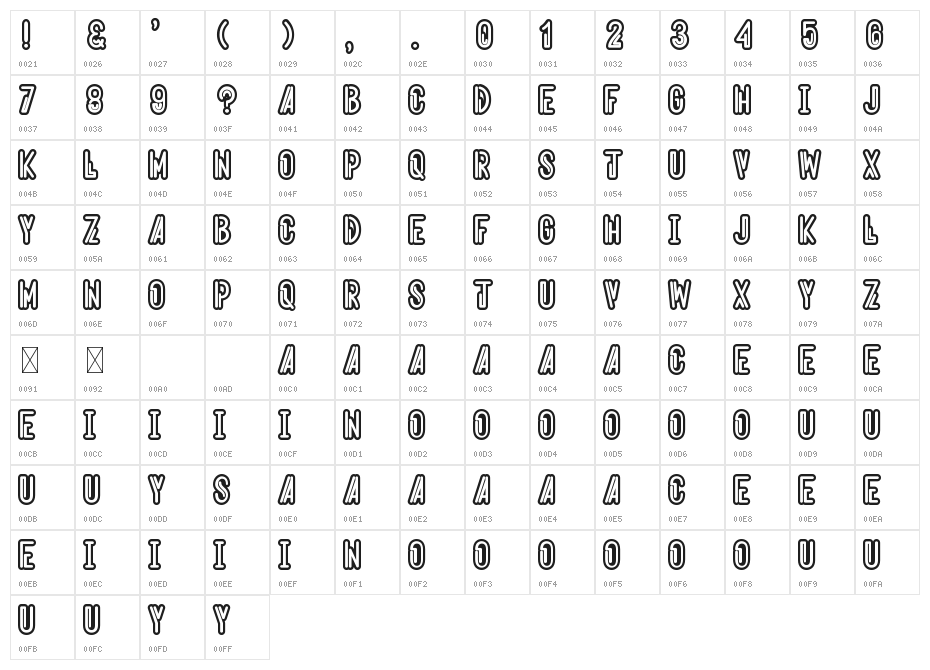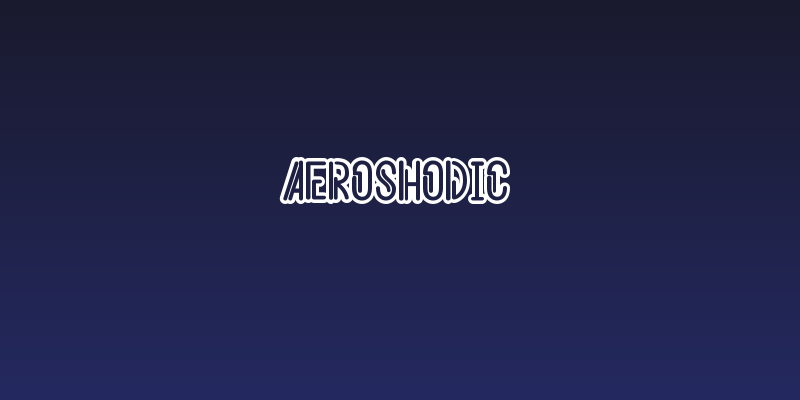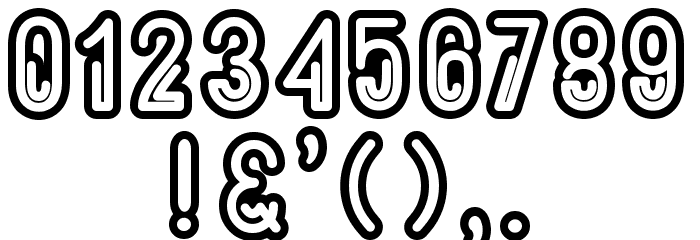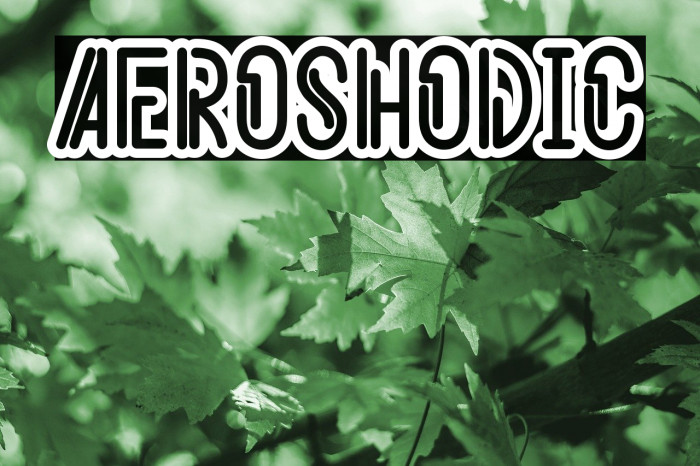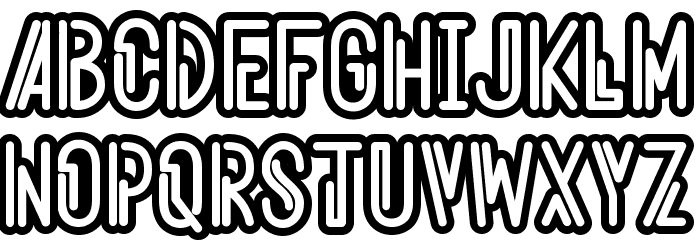
Aeroshodic Font
Aeroshodic Description
This font features a bold, outlined style with a modern and playful aesthetic. The characters are uppercase and lowercase letters, along with numbers and a selection of special characters. Each letter is enclosed within a thick border, creating a striking and eye-catching effect. The design is consistent across all characters, maintaining a uniform appearance that enhances readability while adding a decorative touch. The font's unique style makes it suitable for projects that require a bold statement, such as posters, headlines, or branding materials. Its playful nature also lends itself well to creative and informal designs.
| Proposed Projects | Ideal for posters, headlines, branding, and creative designs. |